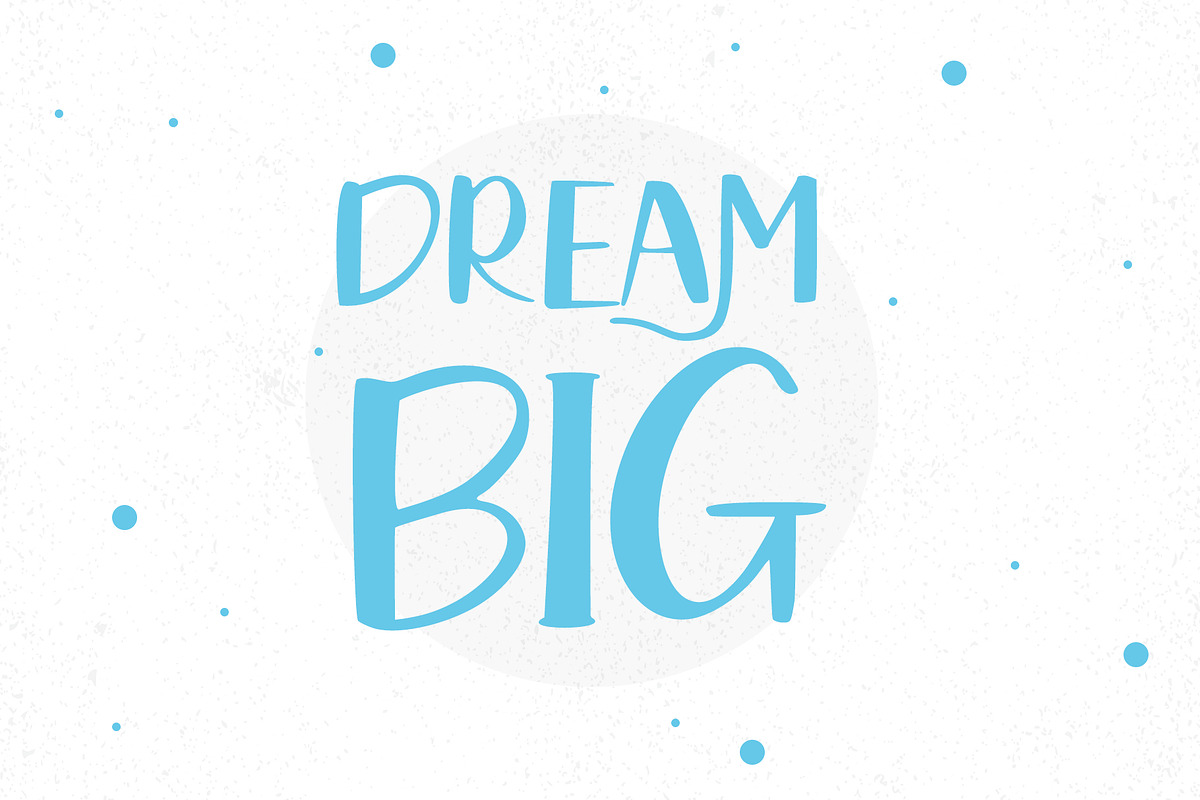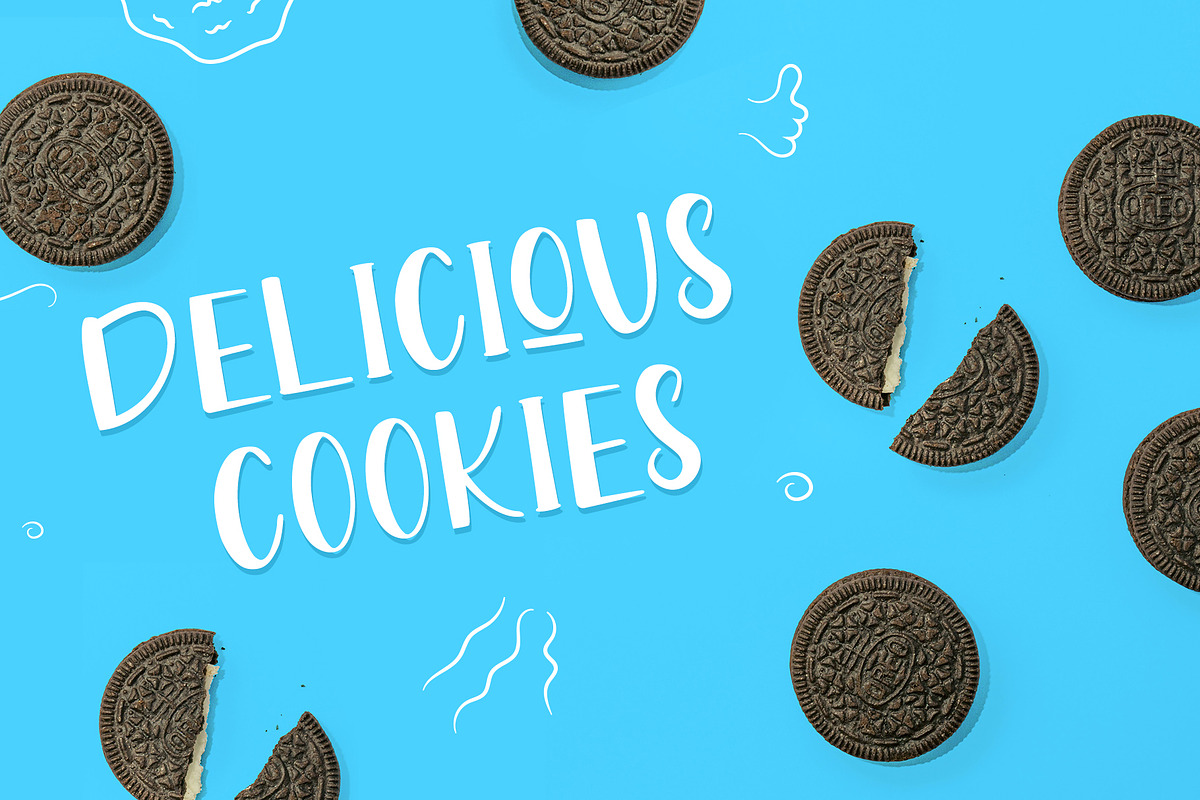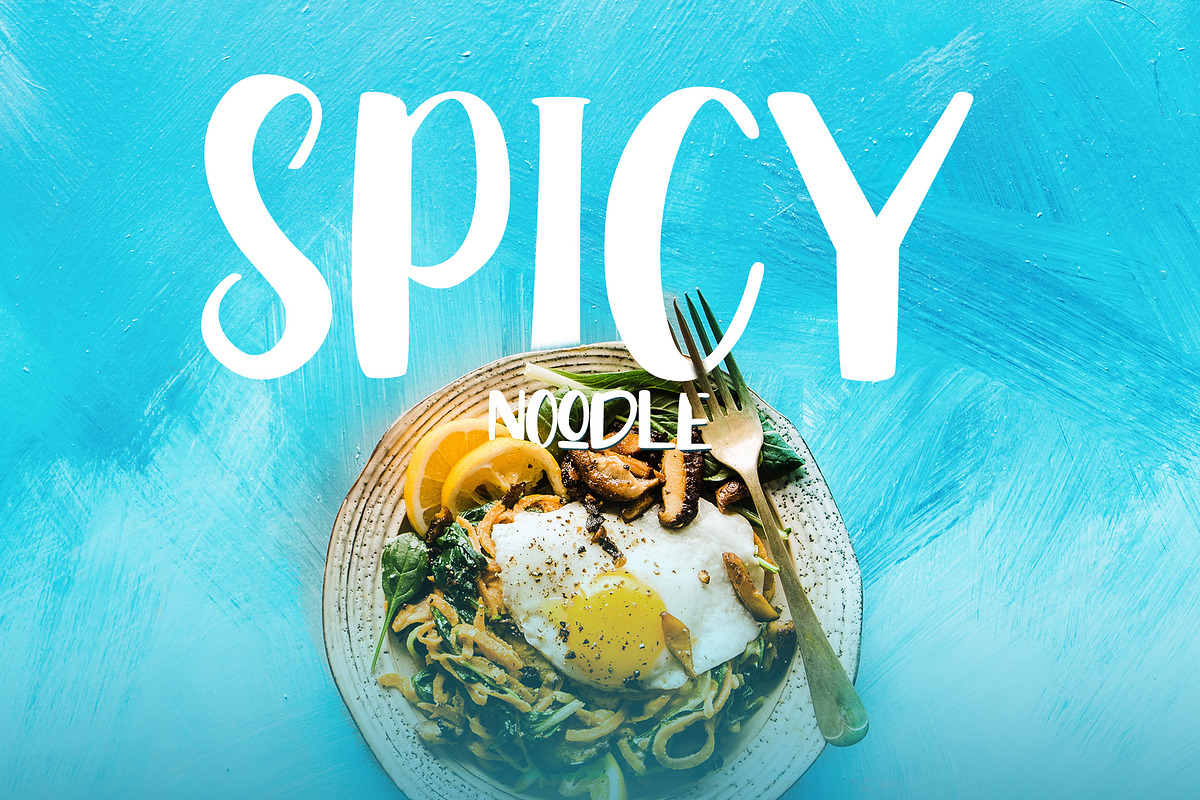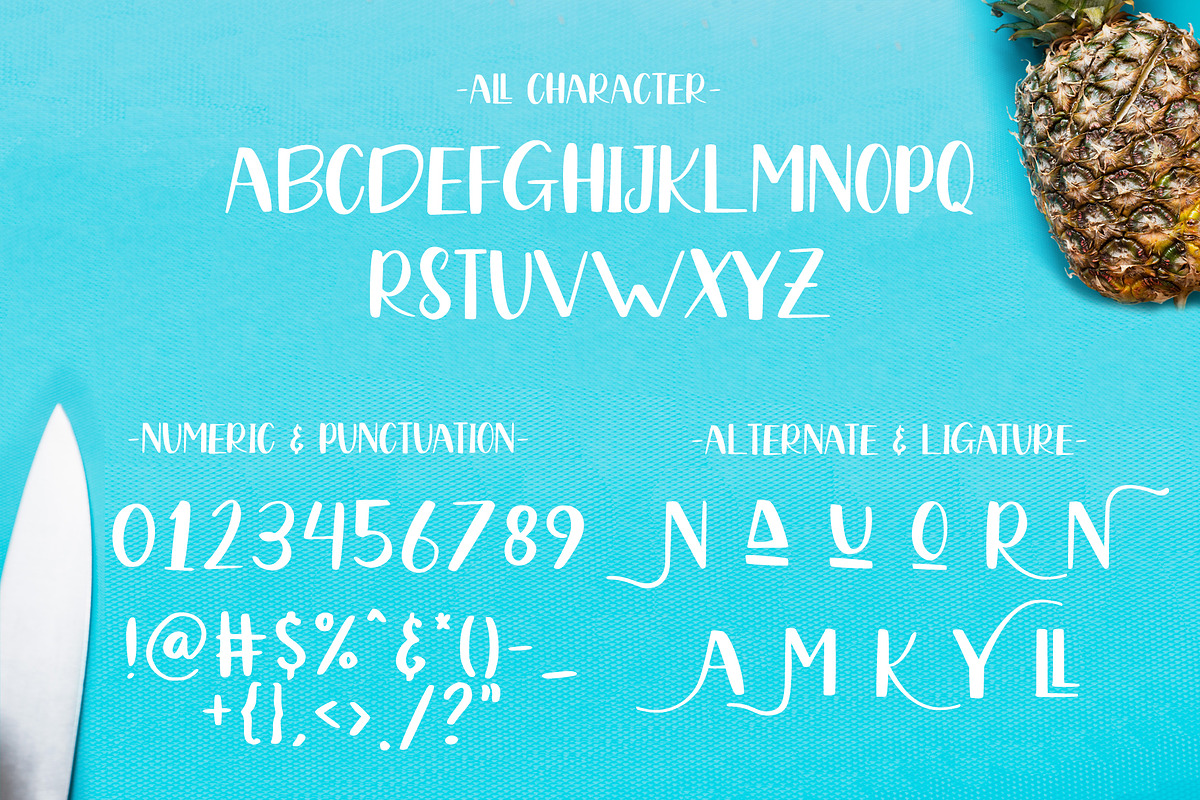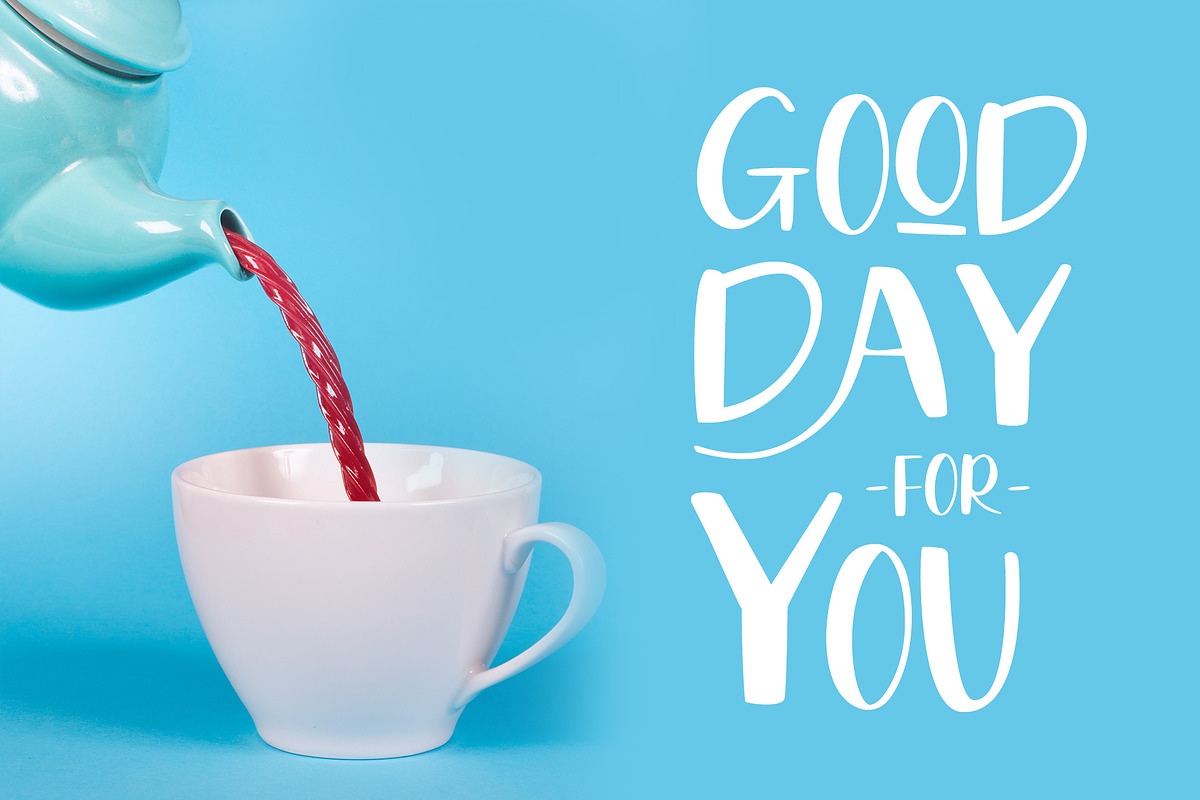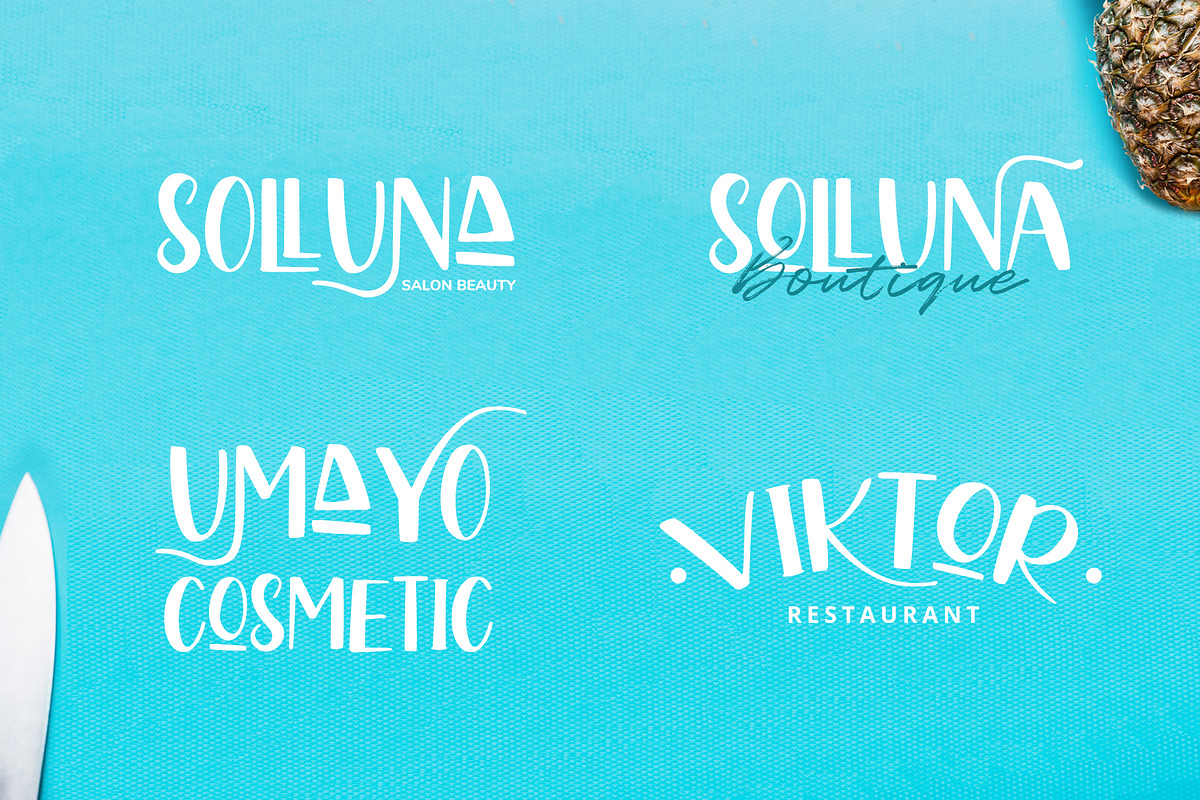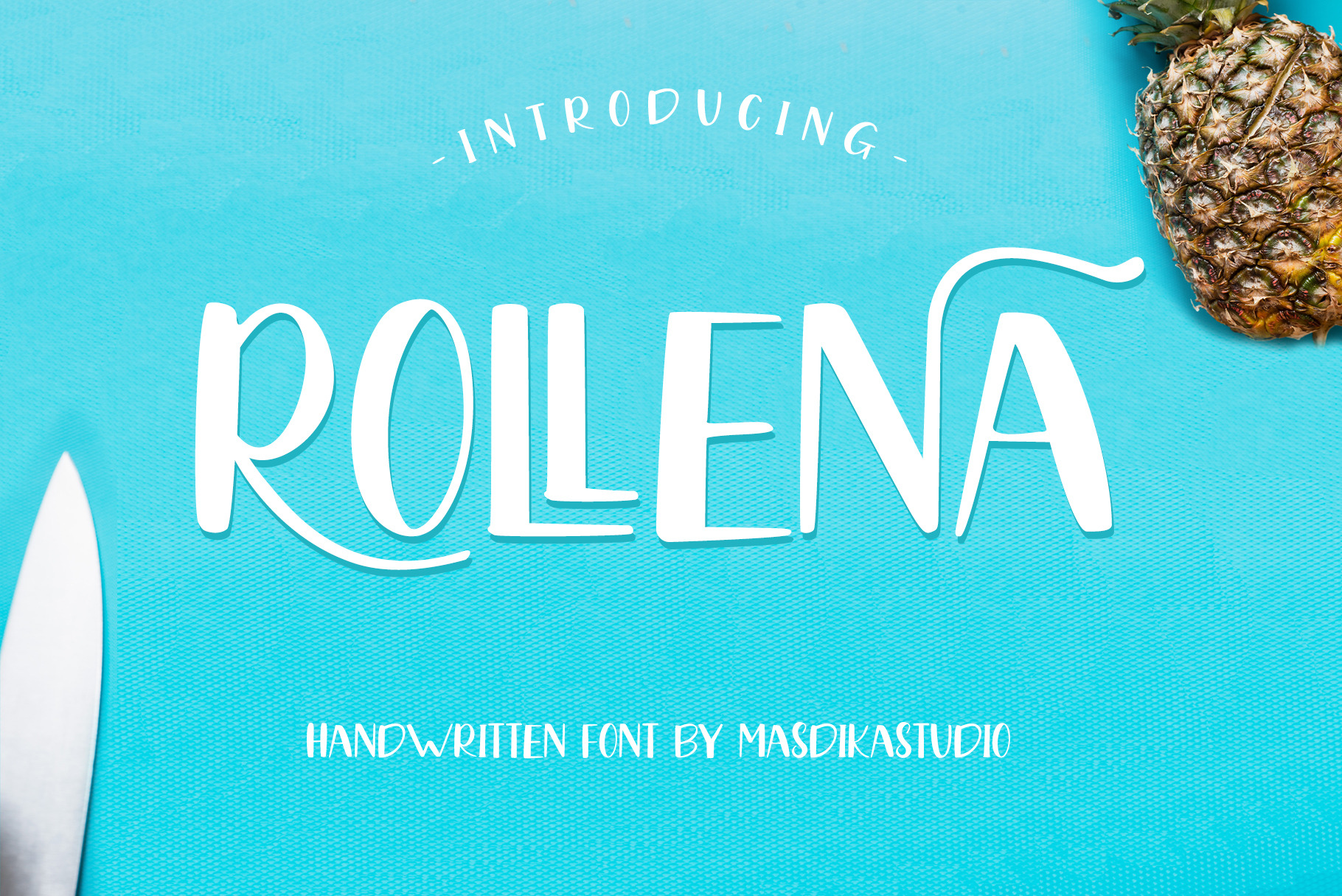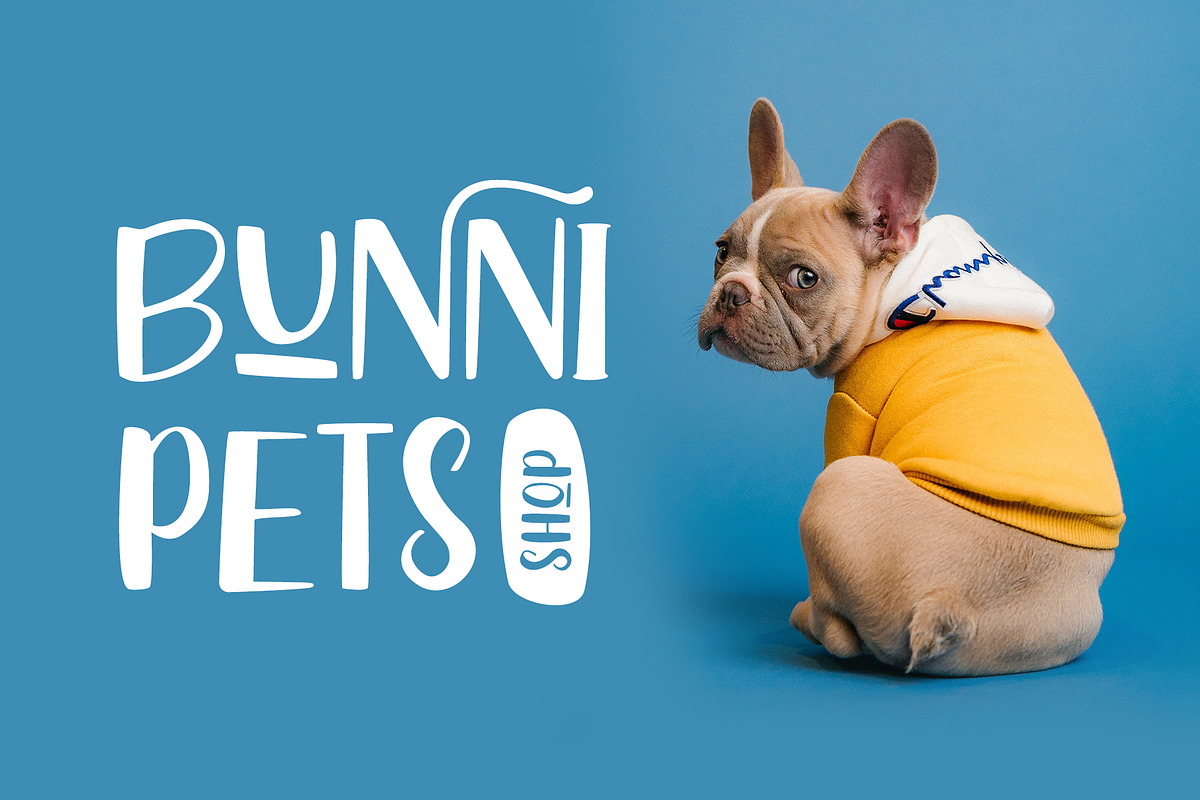
Rollena - A Fun Handwritten Font
Introducing Rollena, ais a handwritten font with big, quirky letters. It is an ALL CAPS font. The natural hand writren is suitable for you who needs a typeface for headline, logotype, apparel, invitation, branding, packaging, advertising etc.